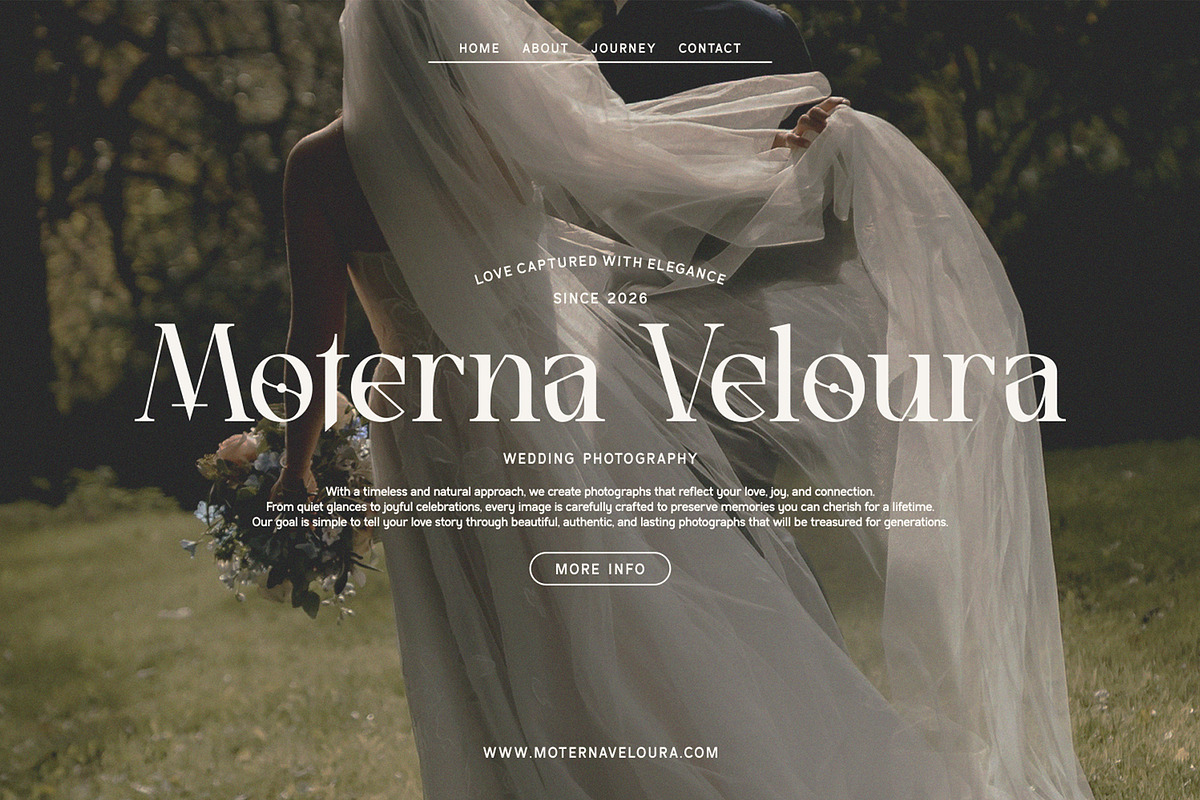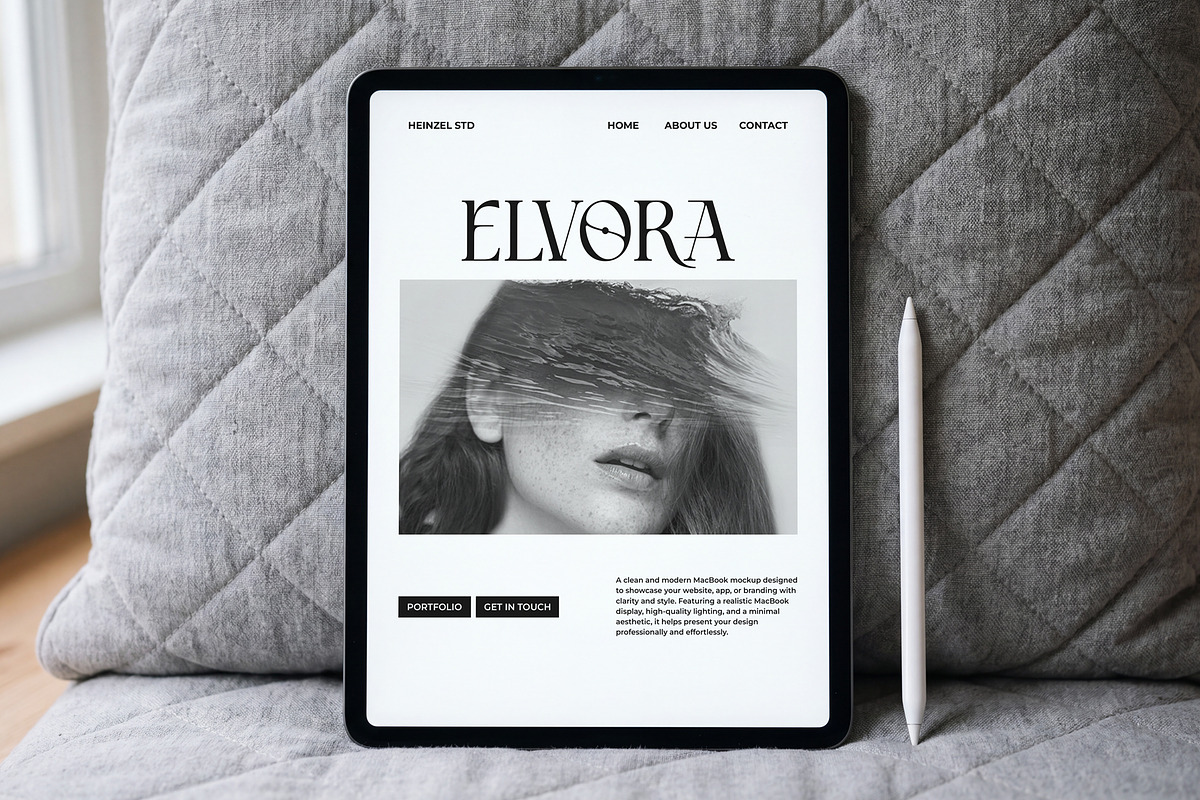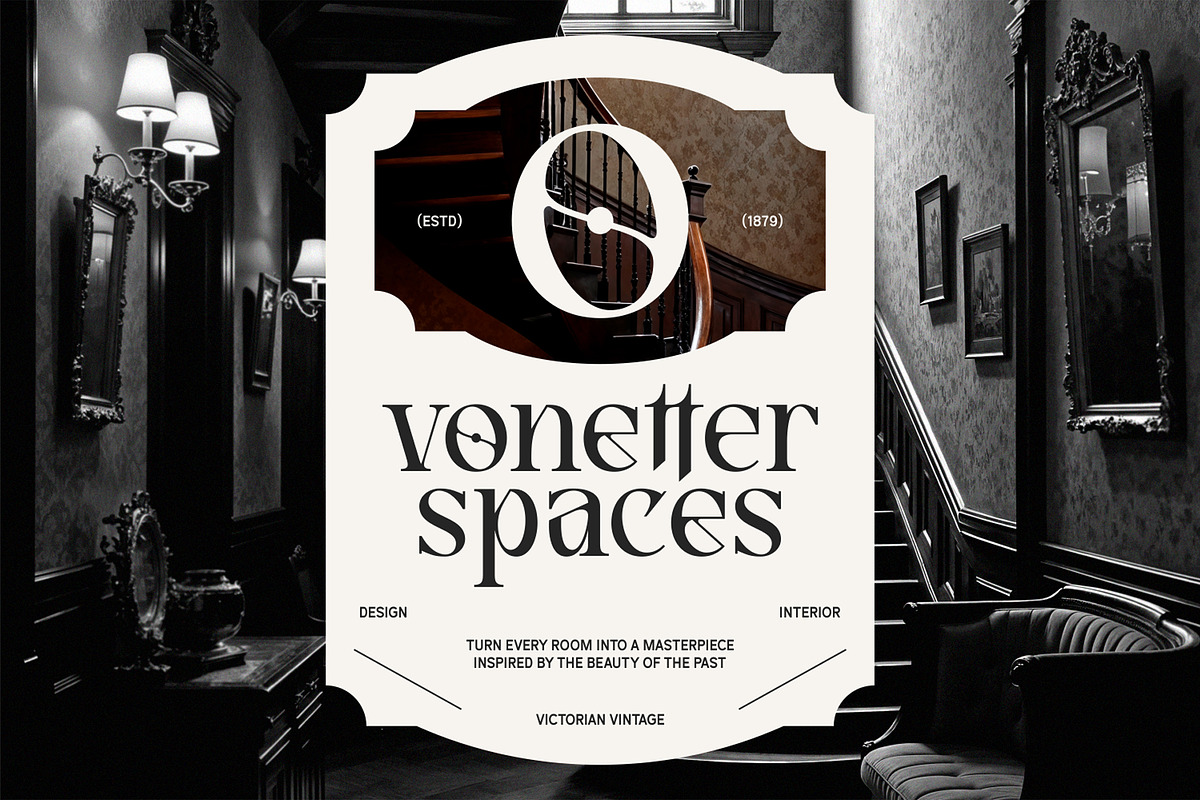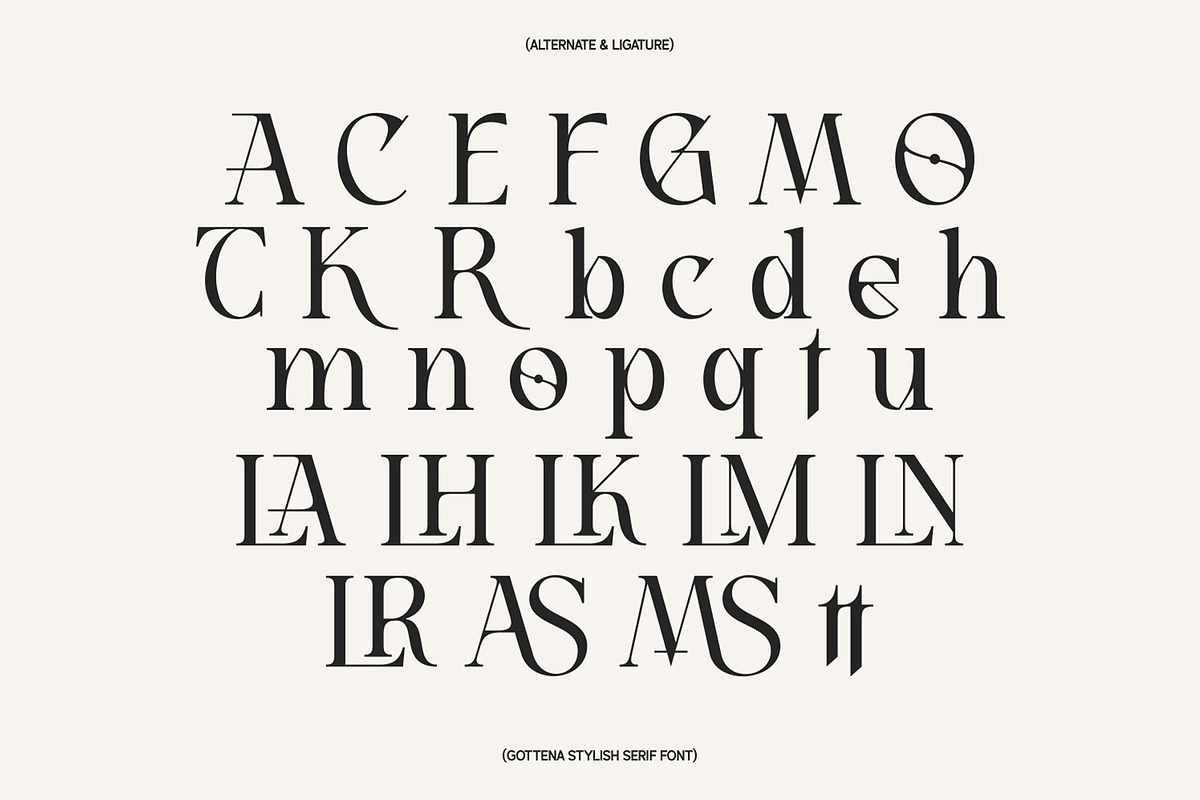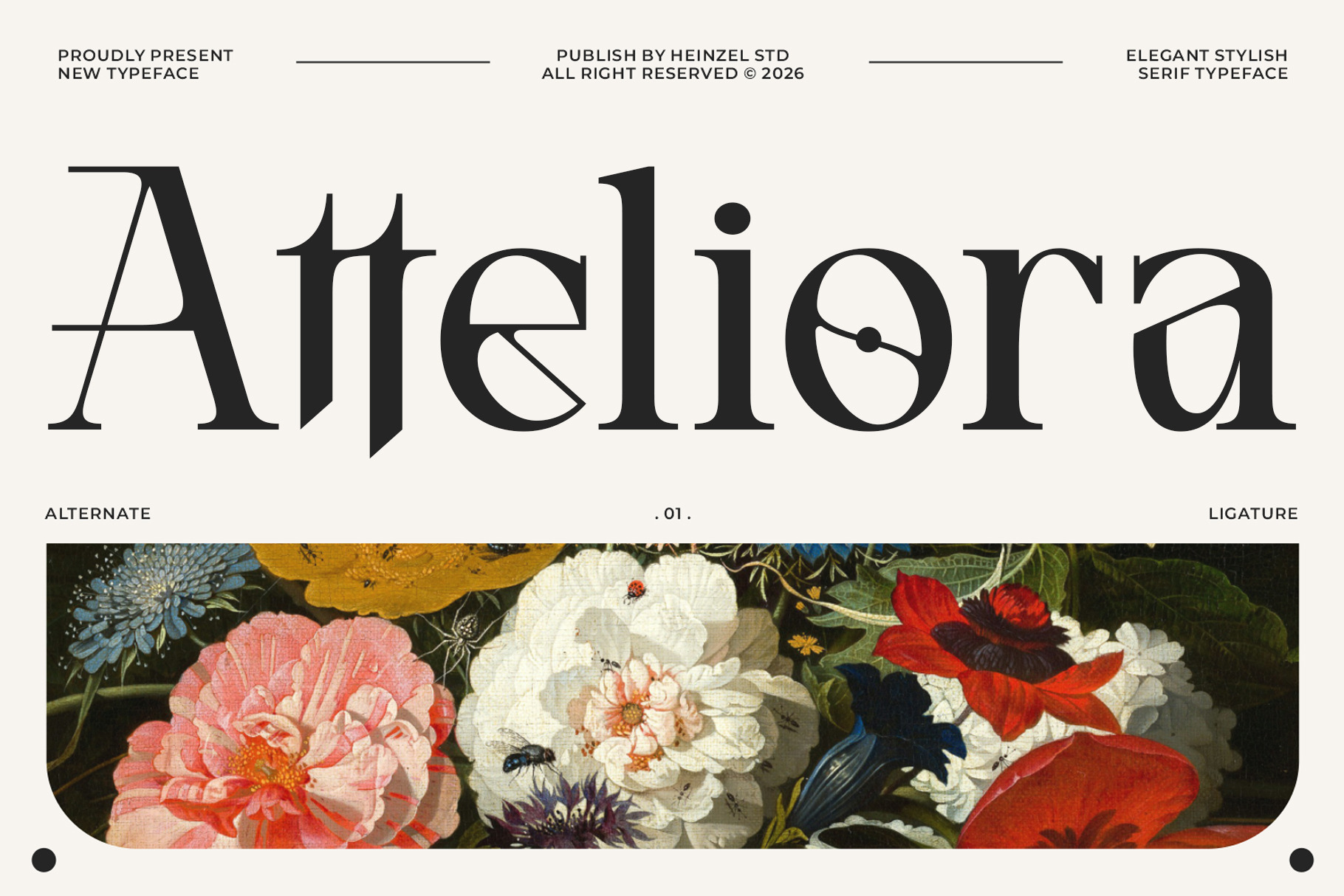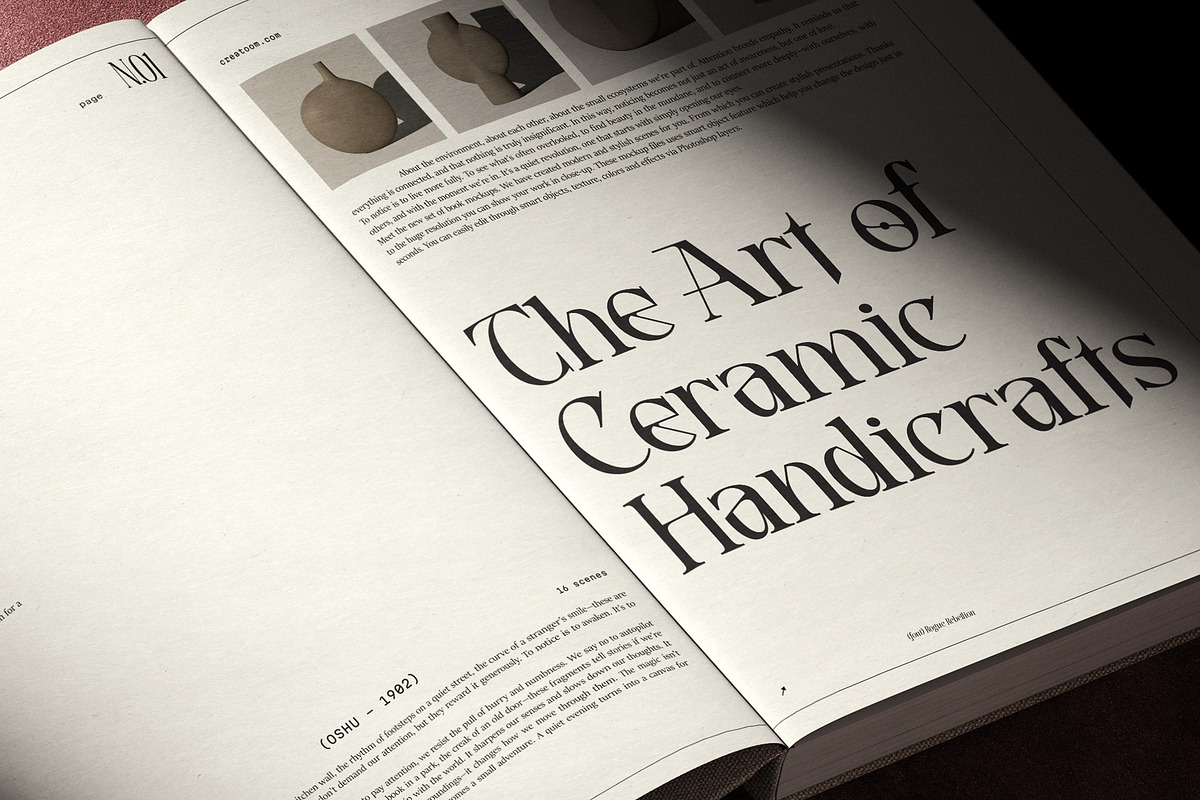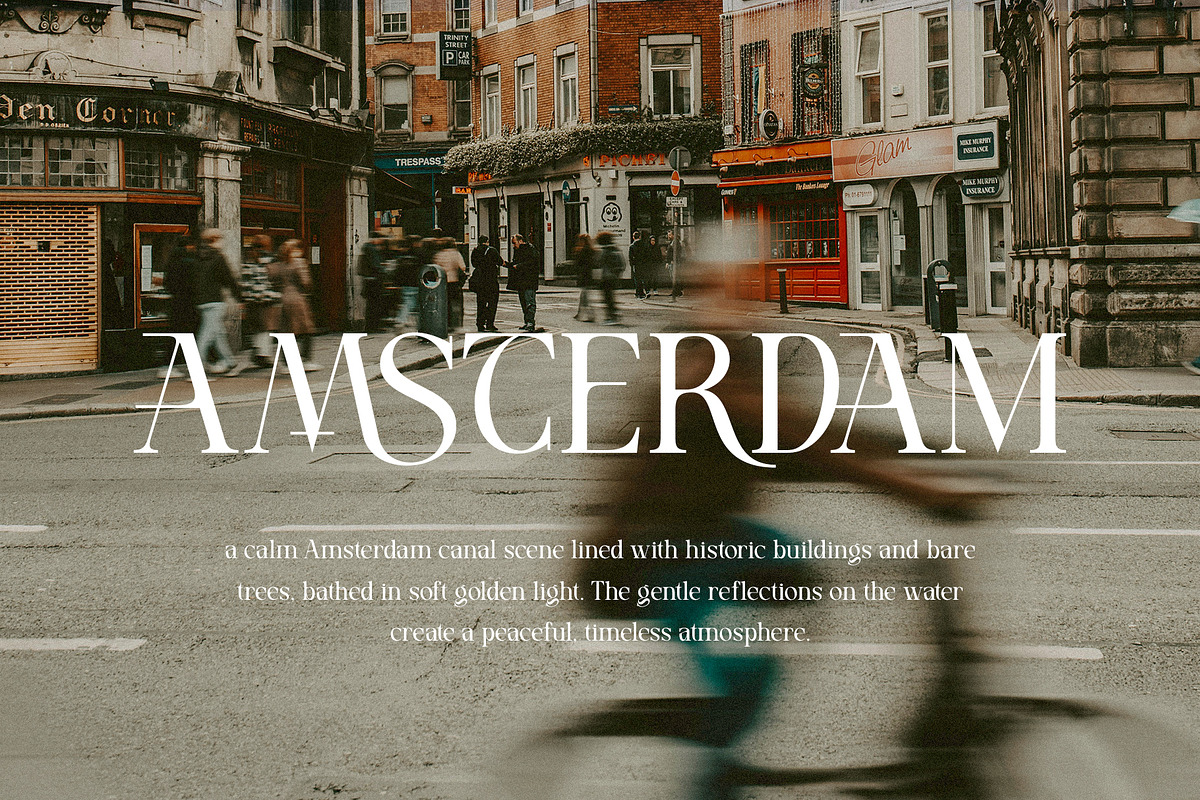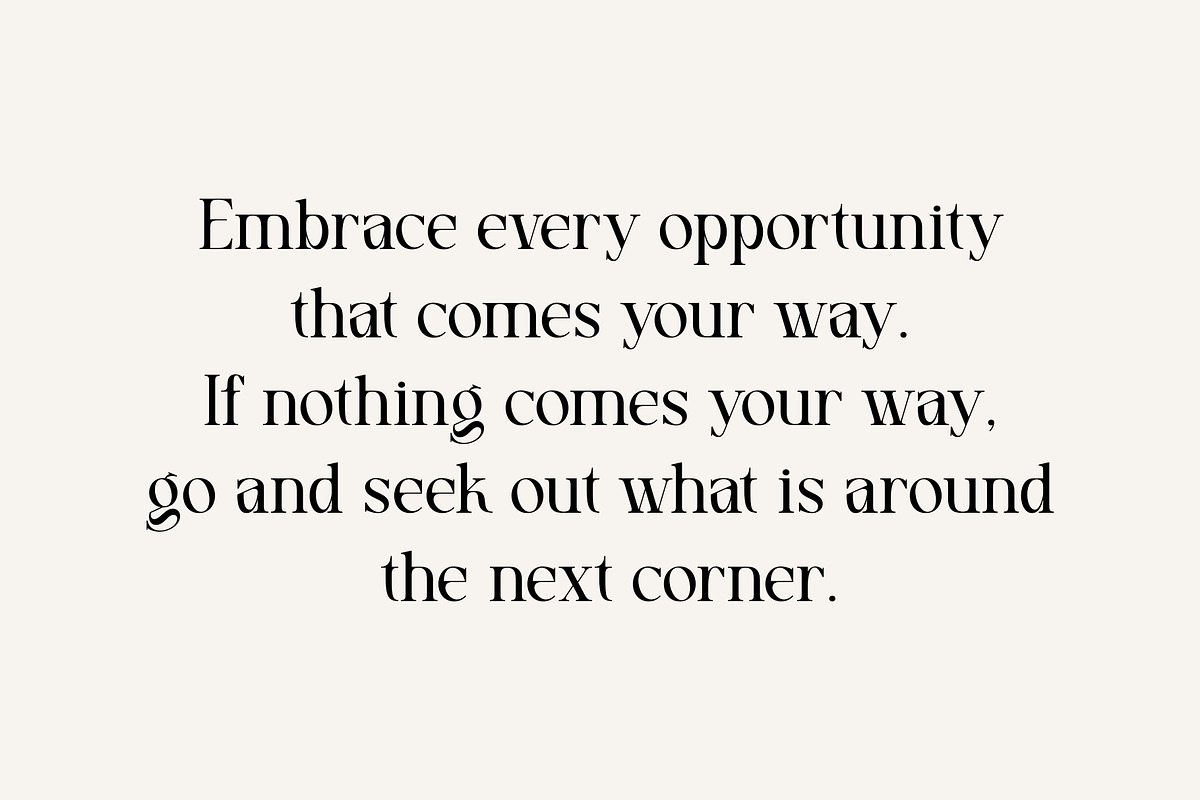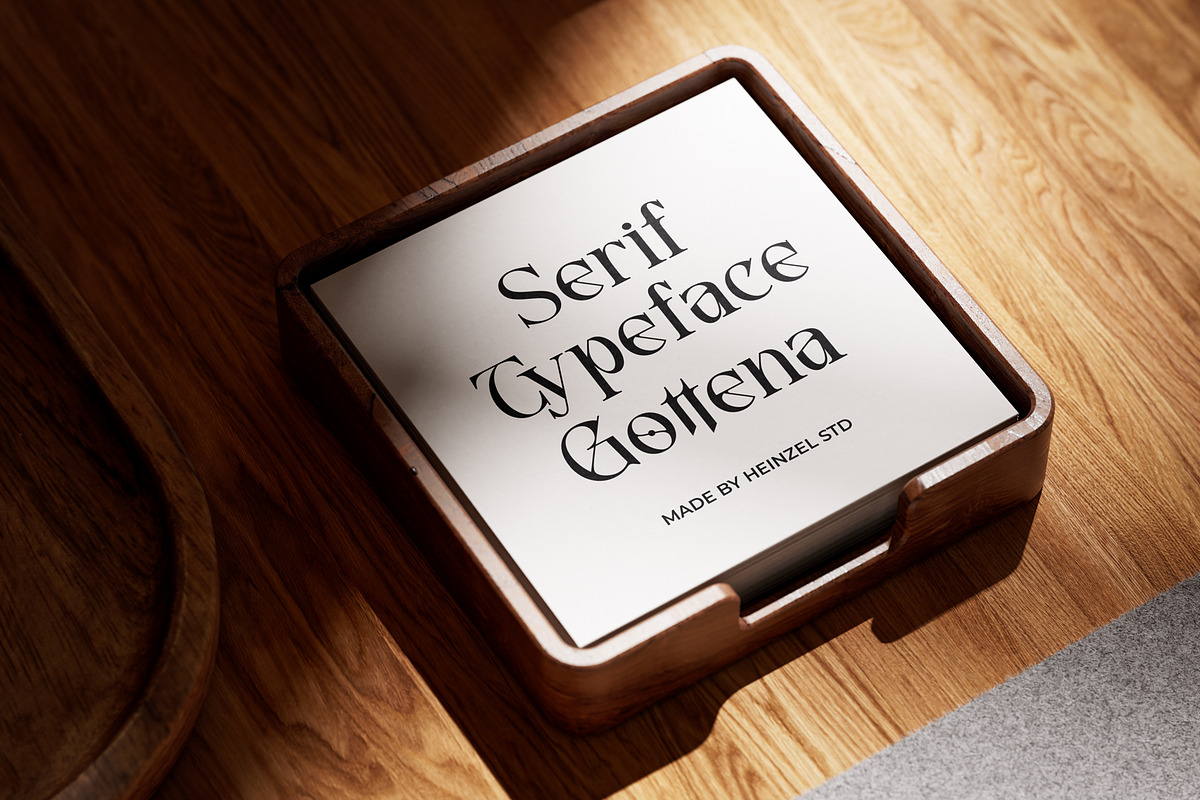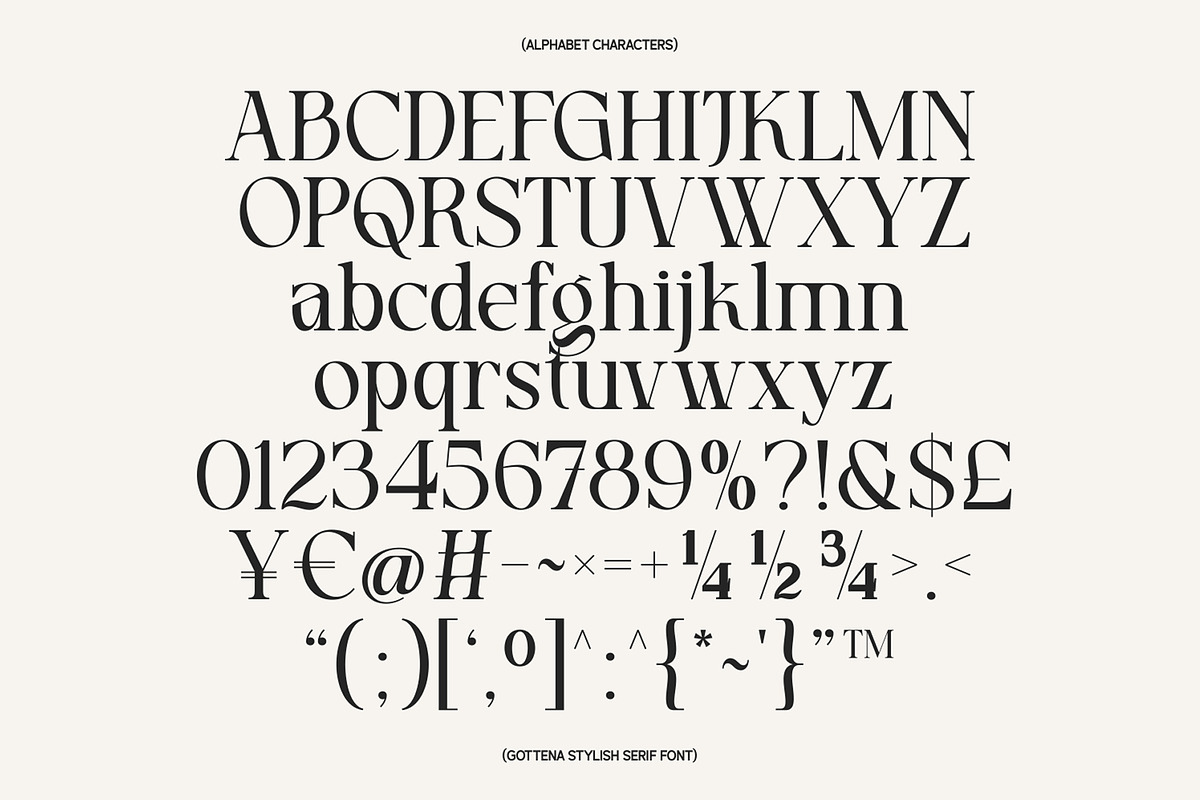
Atteliora Elegant Serif Font
Atteliora is an elegant modern serif font crafted to bring sophistication, luxury, and timeless beauty to every design. Featuring graceful high-contrast letterforms, stylish ligatures, and carefully designed alternate characters, Atteliora delivers a refined editorial aesthetic that is perfect for premium branding and creative projects.
Inspired by classic fashion typography with a contemporary twist, Atteliora creates stunning visual harmony for logos, magazine headlines, cosmetic packaging, wedding invitations, social media graphics, book covers, luxury websites, and boutique branding. Every character has been meticulously designed to ensure exceptional readability while maintaining an artistic and distinctive personality.
Its collection of beautiful ligatures allows text to flow naturally, giving words a custom-lettered appearance without extra effort. Whether you're creating minimalist branding or sophisticated editorial layouts, Atteliora provides the perfect balance between elegance and functionality.
From luxury fashion labels to high-end product packaging, Atteliora helps your designs stand out with confidence and style. It is the perfect choice for designers, branding agencies, content creators, and entrepreneurs looking for a premium serif typeface with lasting visual appeal.